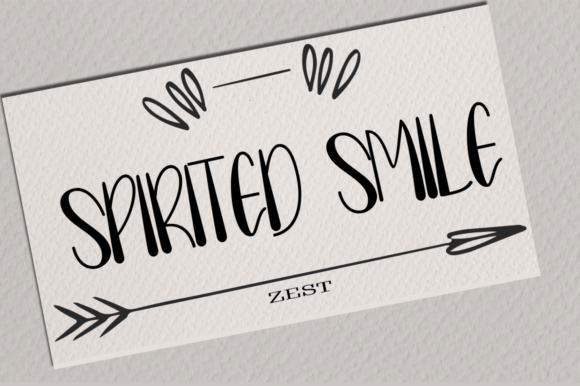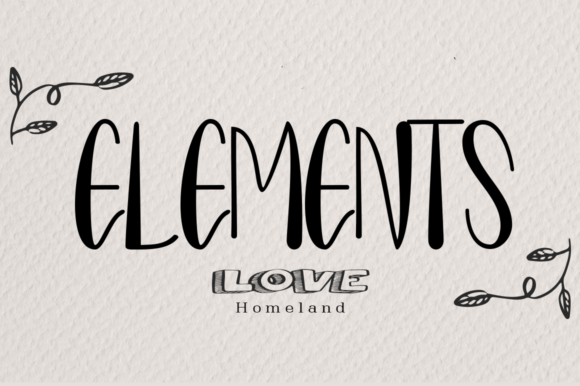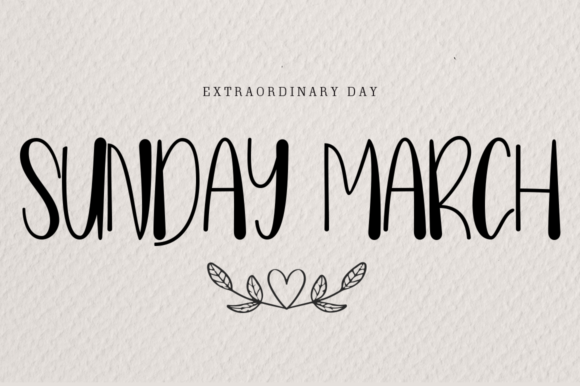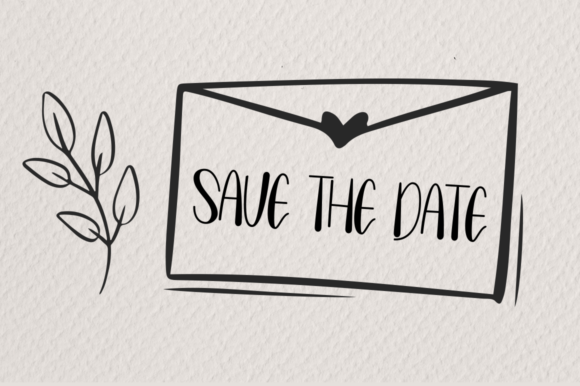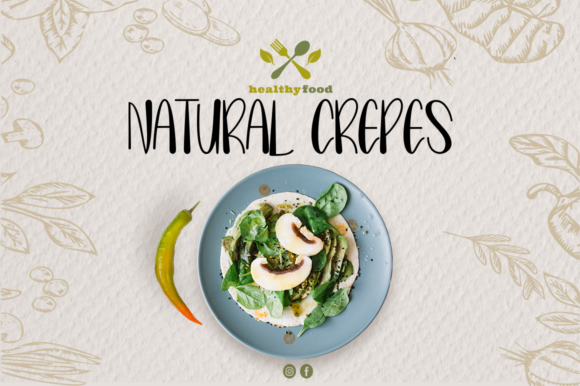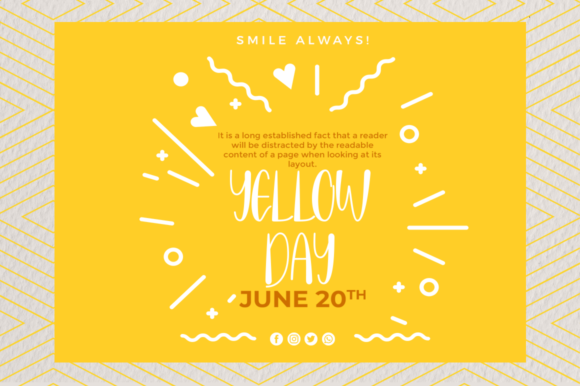
Introduction to Kind Sight Font
Kind Sight embodies fun, quirkiness and authenticity.
This enchanting sans serif font will turn any creative idea into a true standout .